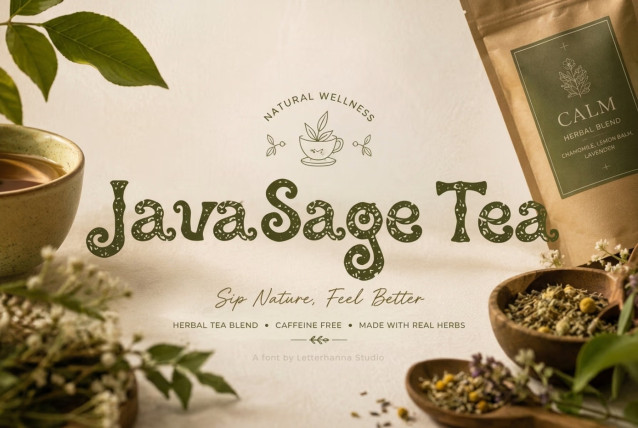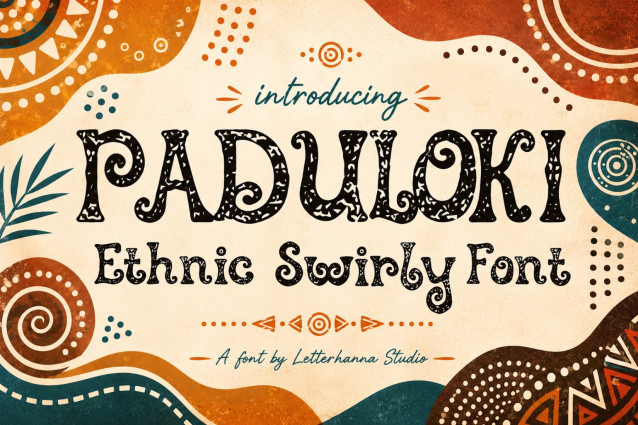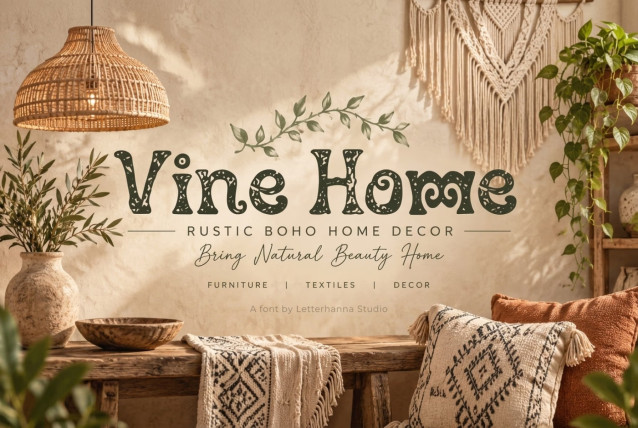
Paduloki Font
Paduloki captures that magic completely. It’s a swirly font built for designers who want their work to feel less like a template and more like a story.
Picture a young designer opening her laptop at a small studio, tasked with branding a new artisan market. She scrolls through dozens of curly fonts, but everything feels too polished, too digital, too disconnected from the handmade goods she’s designing for. Then she finds Paduloki — and suddenly, everything clicks. The dotted texture inside each letter mirrors the embroidery on the market’s woven baskets. The looping swashes echo the curling henna patterns painted on the vendors’ hands. It doesn’t just look pretty; it tells the same story her brand is trying to tell.
Meet Paduloki 🌾 a swirly font packed with hand-drawn charm. Every letter is filled with tiny dots and doodled florals, giving it a warm, textile-inspired texture unlike your average curly typeface. Bold curls, playful loops, and an unmistakable folk-art soul make it perfect for boho branding, packaging, invitations, and craft businesses that want to feel handmade — not mass-produced. If your project needs warmth and character, Paduloki delivers both. Download it today and start designing with heart. ✨